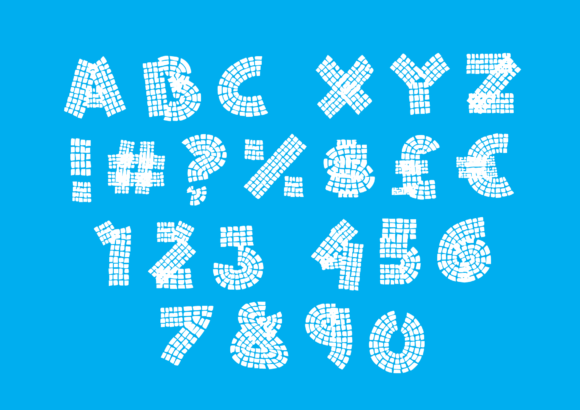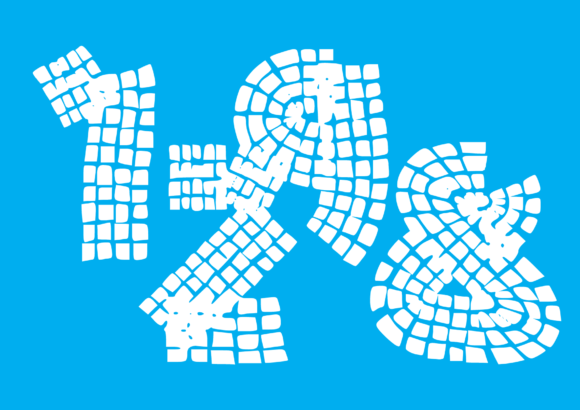
Bathroom Tile Font: Add a Cool, Quirky Touch to Your Designs
Are you tired of using the same old fonts in your designs? Do you want to add a unique and quirky touch to your projects? Look no further than the Bathroom Tile Font! This cool and decorative font is sure to make your designs stand out from the crowd.
What is Bathroom Tile Font?
Bathroom Tile Font is a one-of-a-kind font that appears as though its characters were created out of little squares, reminiscent of bathroom tiles. Its quirky and playful design makes it perfect for adding a touch of personality to your designs. Whether you’re a designer, crafter, or DIY enthusiast, this font is sure to inspire your creativity.
Key Features of Bathroom Tile Font
- Unique Design: The Bathroom Tile Font features a distinctive design that sets it apart from other fonts. Its characters are made up of small squares, giving it a fun and quirky look.
- Cool and Quirky: This font is perfect for designers who want to add a touch of whimsy to their projects. It’s ideal for creating eye-catching headings, titles, and captions.
- Highly Versatile: The Bathroom Tile Font can be used in a wide range of design projects, from digital graphics to print materials, such as brochures, posters, and flyers.
Uses for Bathroom Tile Font
The Bathroom Tile Font is a versatile font that can be used in a variety of design projects. Here are some ideas to get you started:
- Digital Graphics: Use the Bathroom Tile Font to create eye-catching social media graphics, blog headers, and website titles.
- Print Materials: Add a touch of personality to your print materials, such as brochures, posters, flyers, and business cards.
- Crafting and Scrapbooking: This font is perfect for crafters and scrapbookers who want to add a unique touch to their projects.
- Signage and Displays: Use the Bathroom Tile Font to create eye-catching signs and displays for events, exhibitions, and retail displays.
Tips for Using Bathroom Tile Font
Here are some tips for using the Bathroom Tile Font in your designs:
- Use it Sparingly: While the Bathroom Tile Font is a fun and quirky font, it can be overwhelming if used excessively. Use it sparingly to add emphasis to your designs.
- Pair it with Other Fonts: Combine the Bathroom Tile Font with other fonts to create visual interest and add depth to your designs.
- Experiment with Colors: The Bathroom Tile Font looks great in bold, bright colors. Experiment with different colors to add a pop of color to your designs.
The Bathroom Tile Font is a unique and quirky font that’s sure to add a touch of personality to your designs. Its cool and playful design makes it perfect for designers, crafters, and DIY enthusiasts who want to create eye-catching projects. With its versatility, ease of use, and highly distinctive design, this font is a must-have for anyone looking to add a little something extra to their designs.